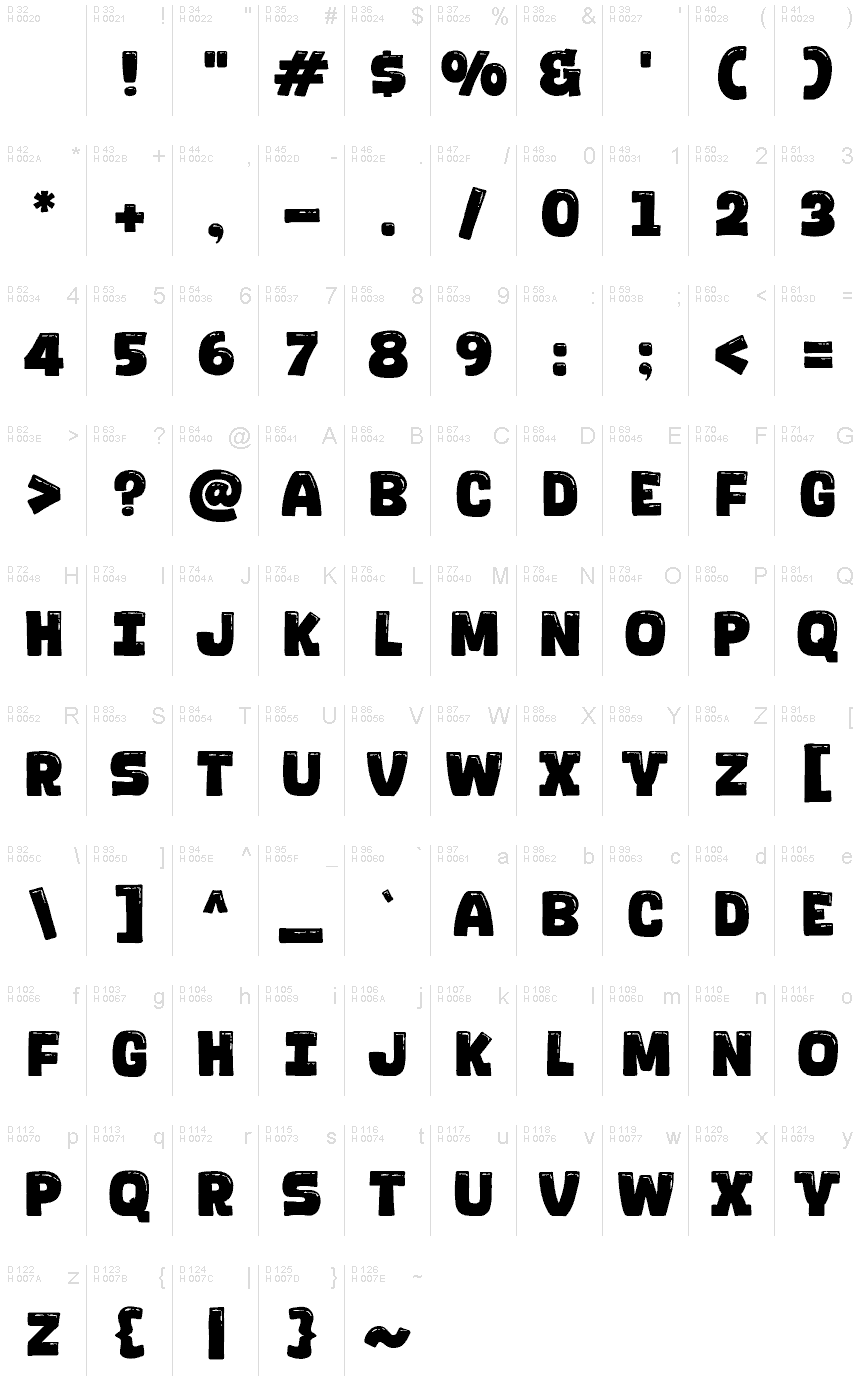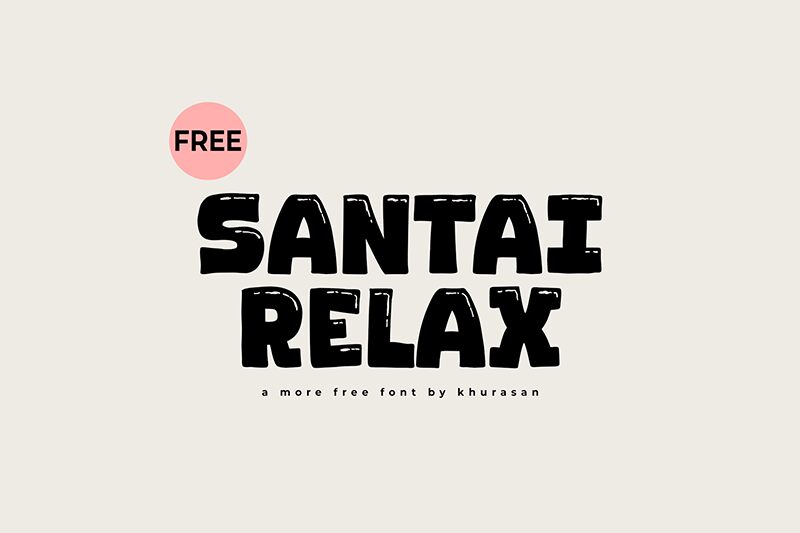
Santai Relax
Santai Relax font is a free cartoon display font by Khurasan that catches the modern and bold style with a grunge texture. With a distressed appearance, visual casual vibe, and youthful energy, it suits the minimalist approach where details have all the power.
With this font type file, you are all set to create interesting apparel design projects, social media posts for Instagram or Facebook, magazines headlines configuring articles and pages quickly. Santai Relax is also great for product packaging/typography where limited space needs be used in an efficient manner: invitations (exhibition), labels/tags too! As every file found here comes without cost associated means downloading each immediately upon need.